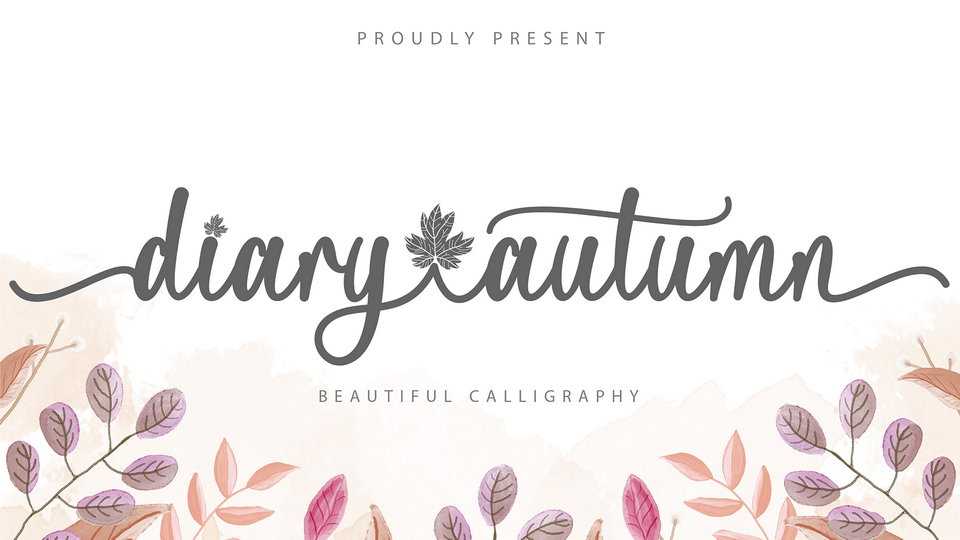
Download Diary Autumn font, a modern calligraphy style typeface combining the leaf shape in the letters. Diary Autumn is a font that can be used for any kind of work.